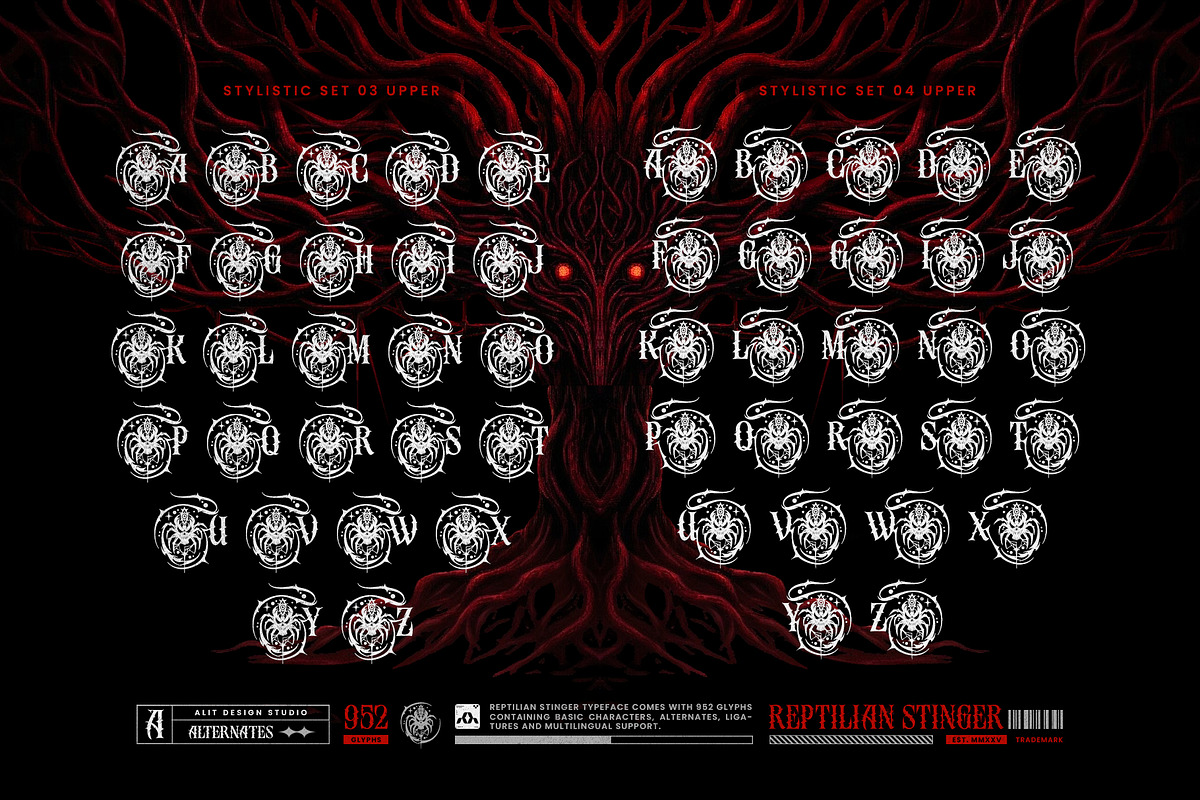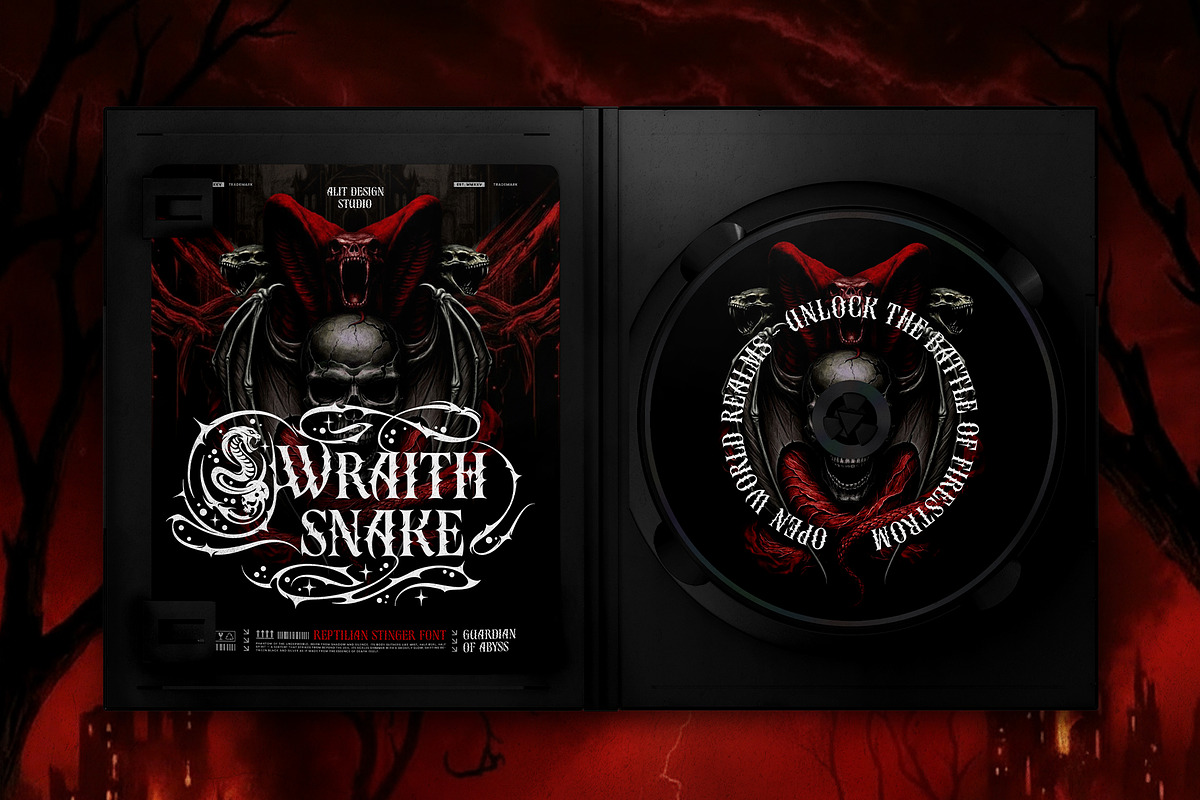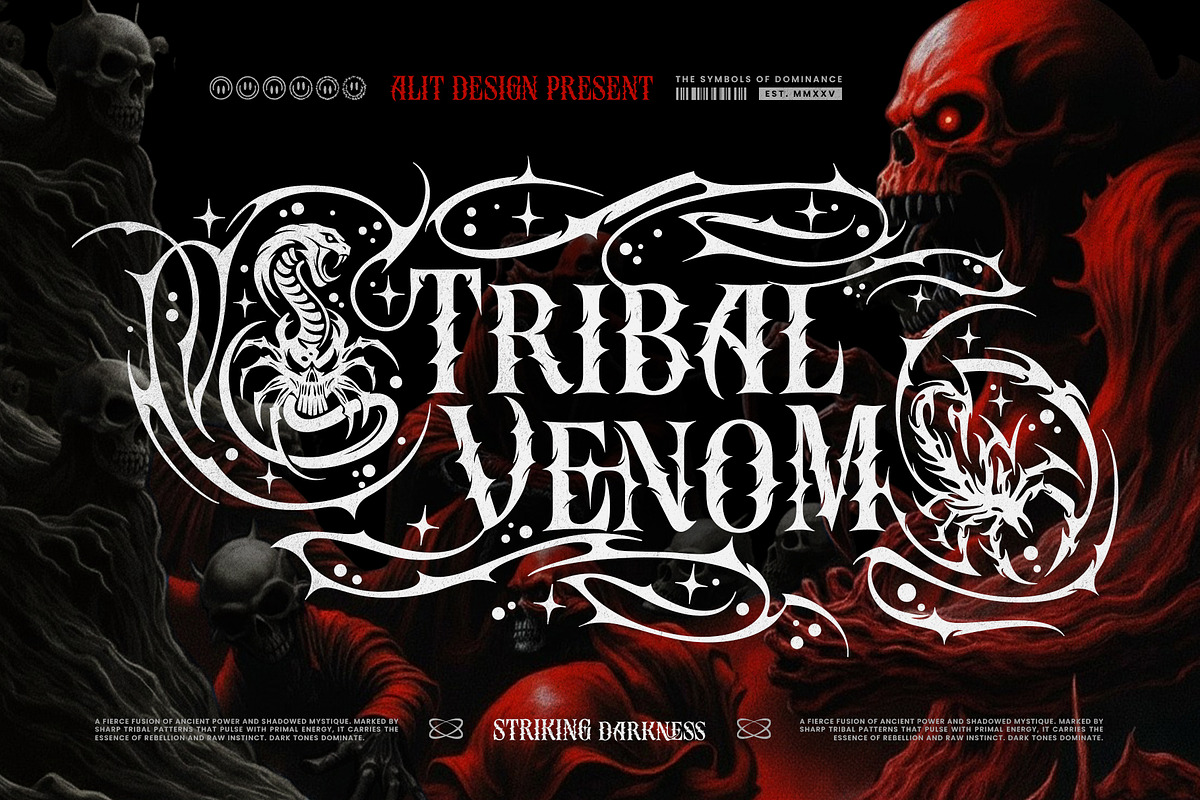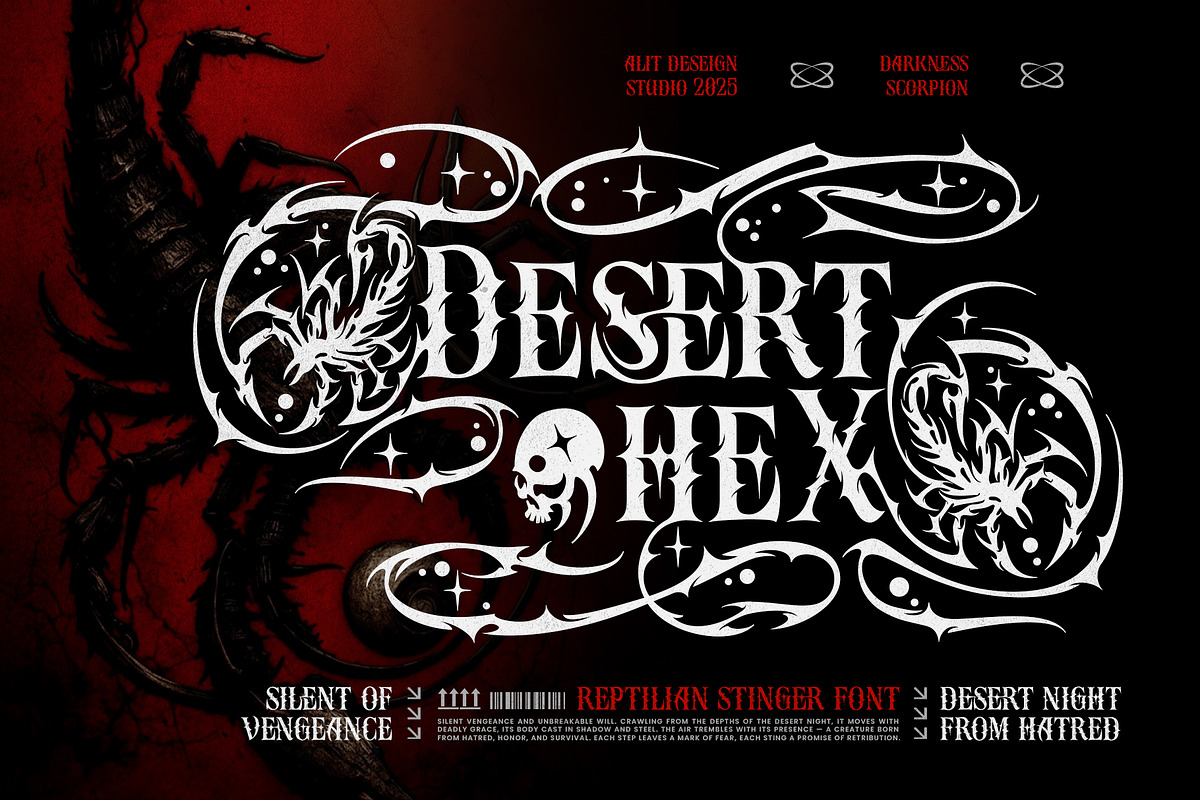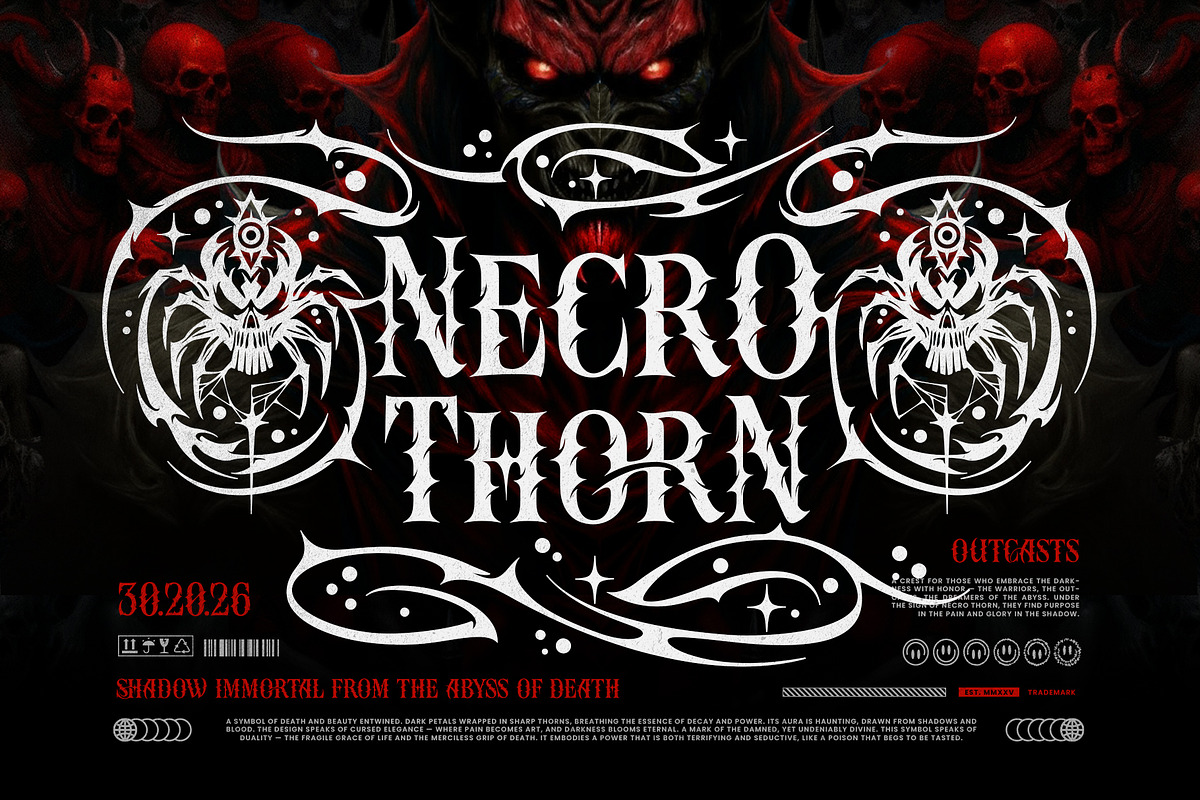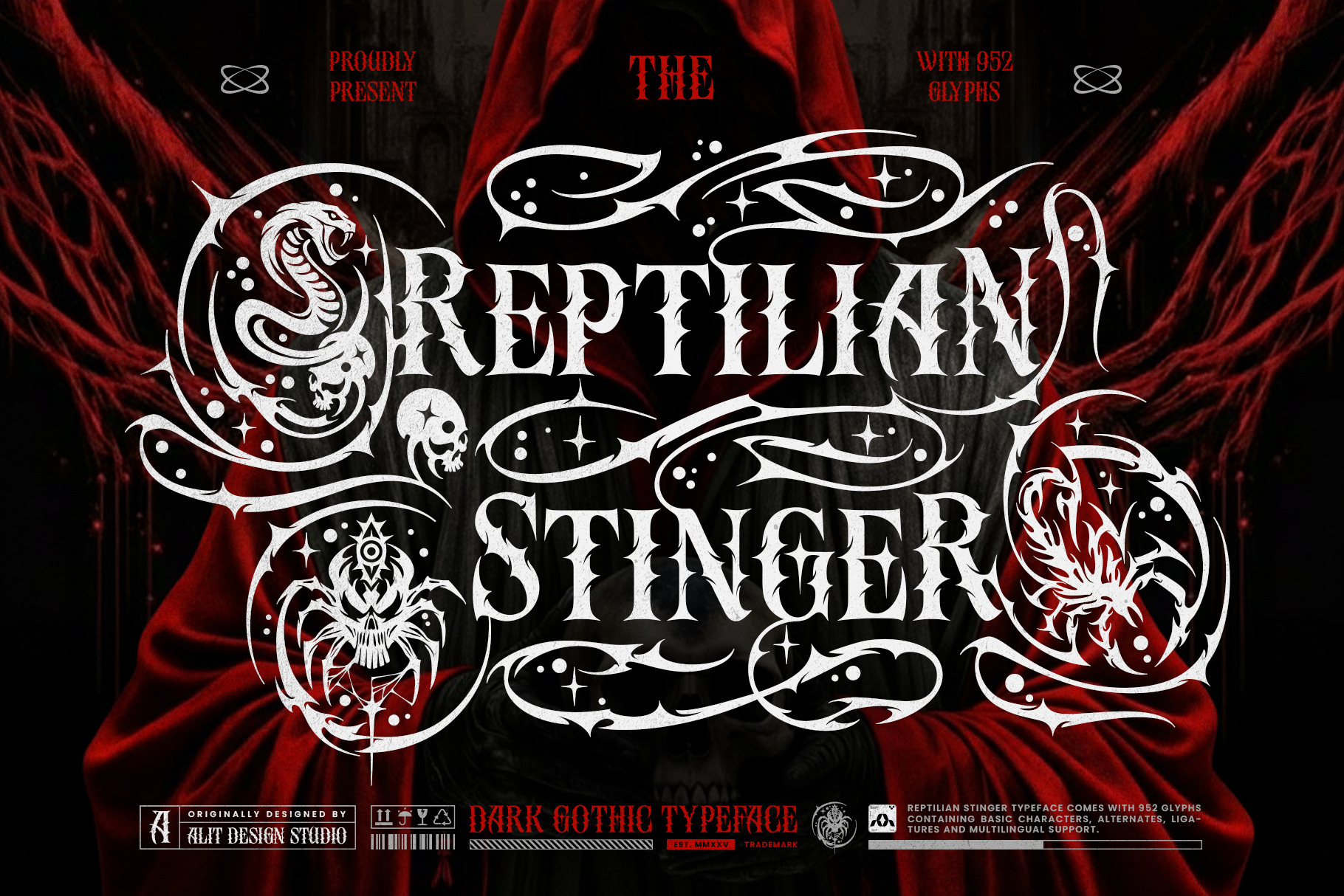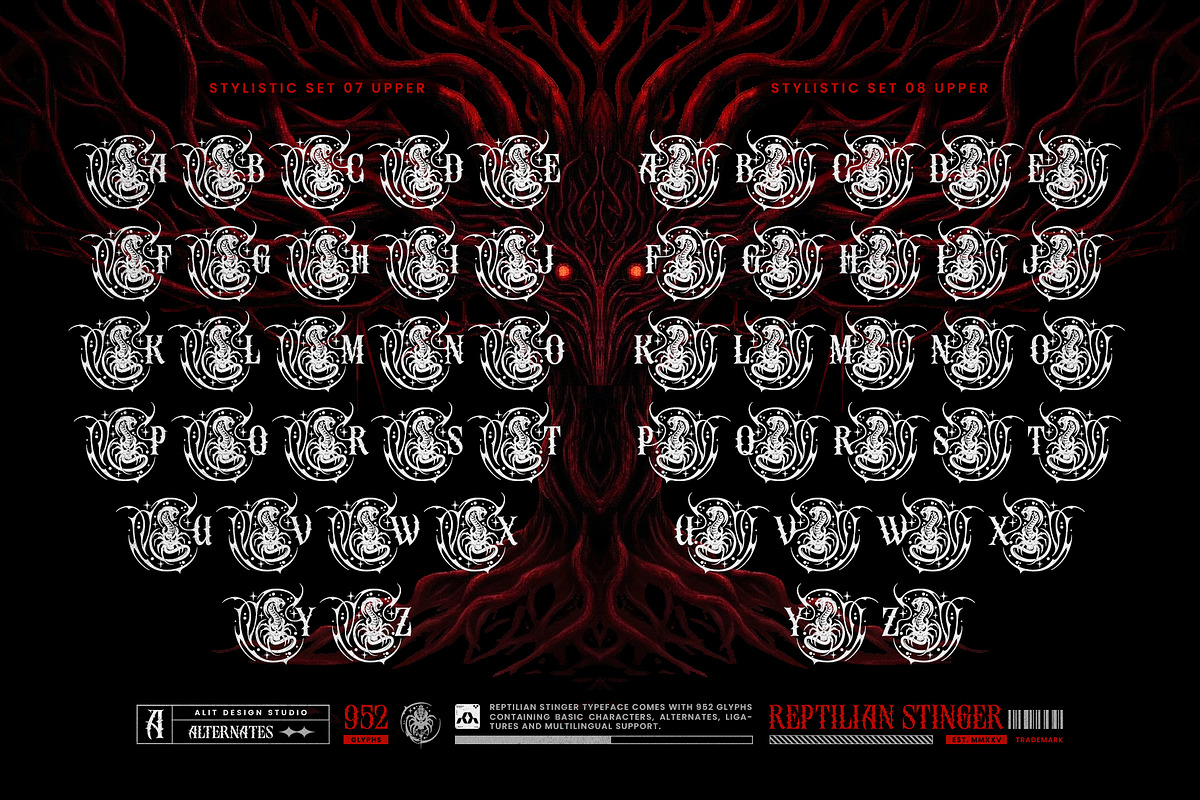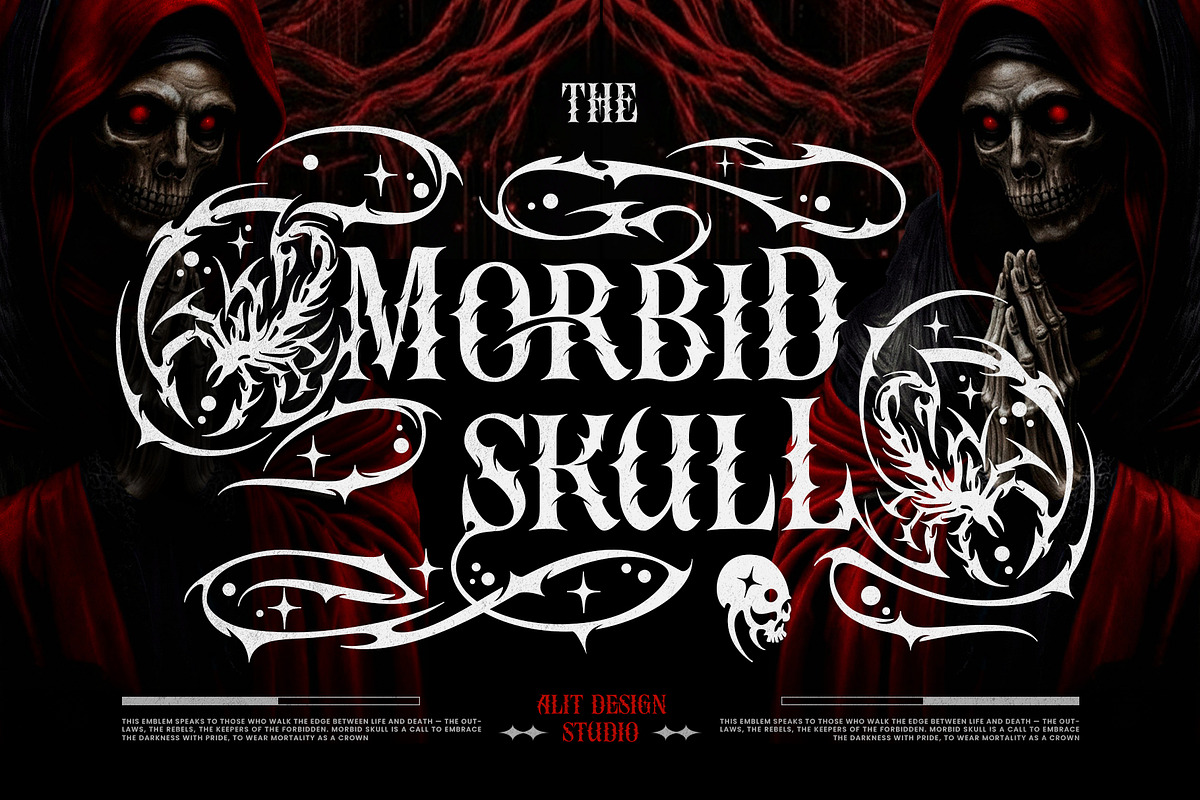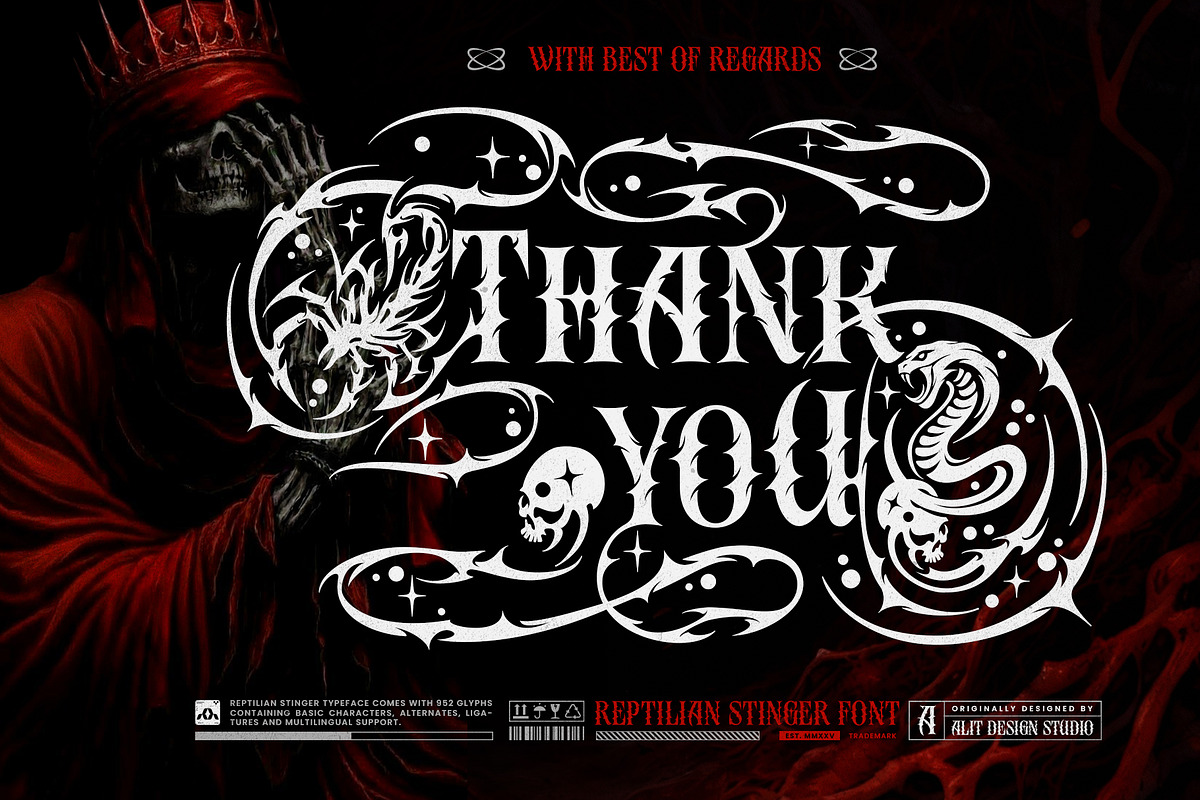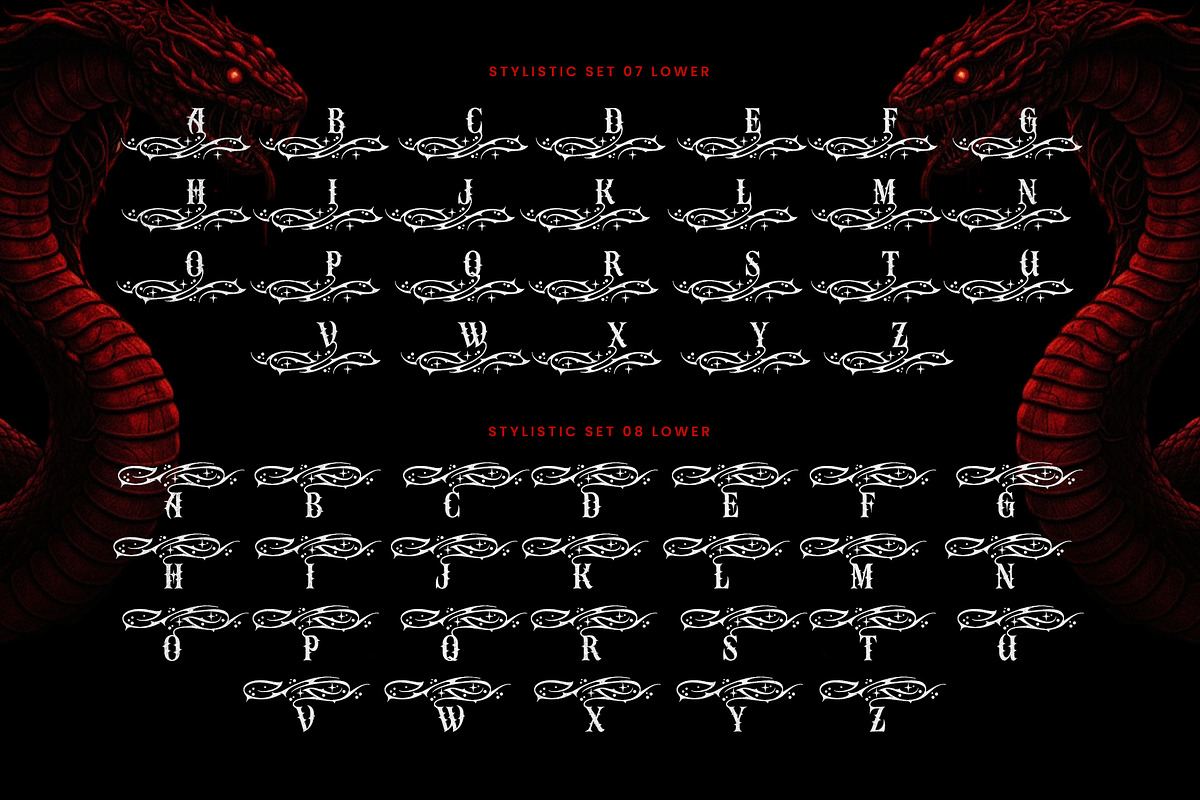
Reptilian Stinger Typeface
Introducing Reptilian Stinger Typeface
Dive into the abyss of darkness with Reptilian Stinger, an aggressive and menacing dark gothic typeface. This is not just a font; it's an arsenal of predatory style, meticulously designed for projects that demand a sharp, powerful, and venomous aesthetic.
Reptilian Stinger is forged from the very essence of fear and shadow. The base letterforms are a "fierce serif" (blackletter) style, where each character is armed with dangerously sharp thorns and barbed edges. The flared, high-contrast strokes give it a dominant and brutal presence, perfect for making an unforgettable statement.
The true power of Reptilian Stinger is unleashed through its massive library of over 952 glyphs. This font crawls with a stunning collection of stylistic alternates, ligatures, and intricate swashes inspired by the most lethal creatures of the night.
- Aggressive Thorny Base: A full set of uppercase and lowercase characters, numbers, and punctuation, all defined by their sharp, spiky terminals.
- Elaborate Creature Swashes: Go beyond simple alternates. This font includes breathtakingly detailed swashes and decorative elements featuring:
- Tribal Scorpions: Intricate illustrations of scorpions, poised to strike, ready to be attached to your letters.
- Coiled Cobras: Venomous snakes and serpents that wrap and twist, adding a layer of primal danger.
- Arachnid Horrors: Dark, spider-like emblems and complex web motifs (as seen in "Necro Thorn" and "Desert Hex").
- Occult & Skulls: Enhance the horror with integrated skull illustrations and dark symbols ("Morbid Skull," "Cursed").
- Massive Glyphs Count (952): A treasure trove of stylistic sets (SS01, SS02, SS03, SS04, etc.) that allows for endless customization. Create unique, illustrative lockups for every word.
- Multilingual Support: Armed and ready for a global audience, Reptilian Stinger includes the characters needed for broad language support.
Perfect For: Reptilian Stinger is the ultimate weapon for designers working on:
- Heavy Metal & Death Metal Logos: Create brutal, iconic branding for bands.
- Horror Movie Posters: Design terrifying titles that bleed menace.
- Dark Apparel & T-Shirt Design: Craft aggressive graphics that stand out.
- Tattoo Art & Branding: The perfect inspiration for gothic and tribal tattoo designs.
- Occult & Fantasy Book Covers: Give your titles a touch of dark magic and ancient evil.
Inject your designs with pure, reptilian venom. Choose Reptilian Stinger and let your text bite back.